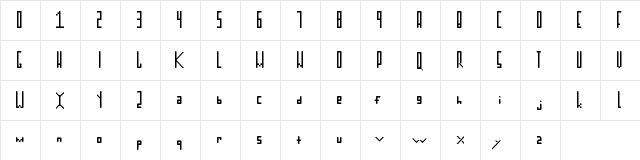
randomsauce Regular
Design Context for randomsauce Typeface
randomsauce offers clean, dependable letterforms without strong stylistic allegiance, making it a practical choice for designers who need flexibility.